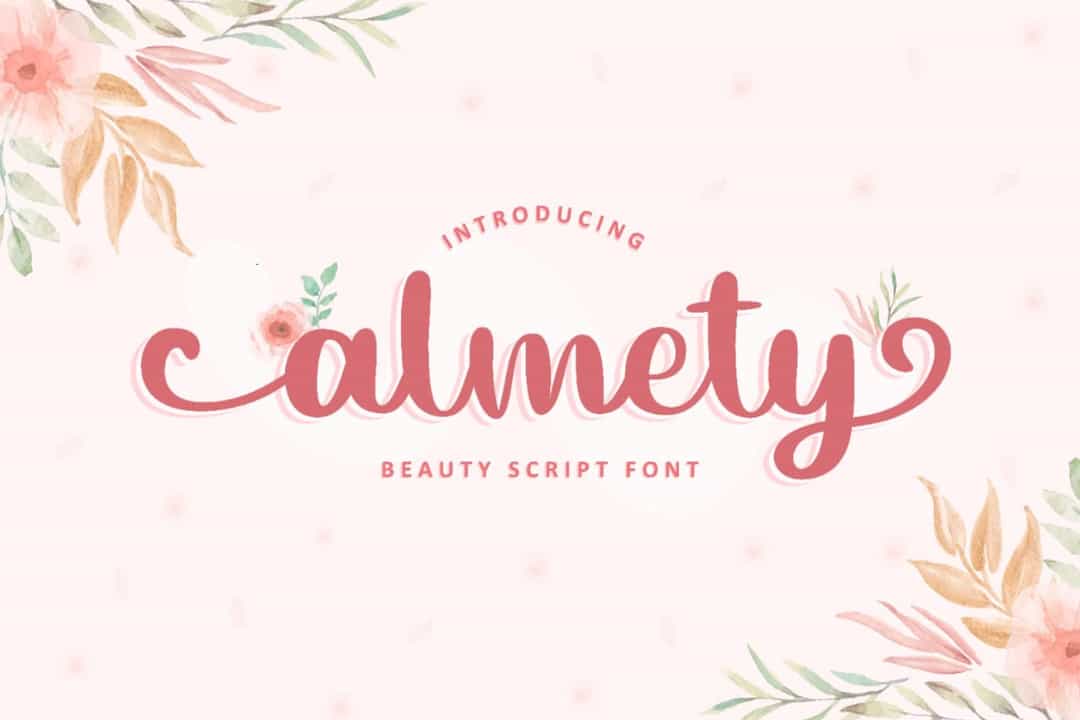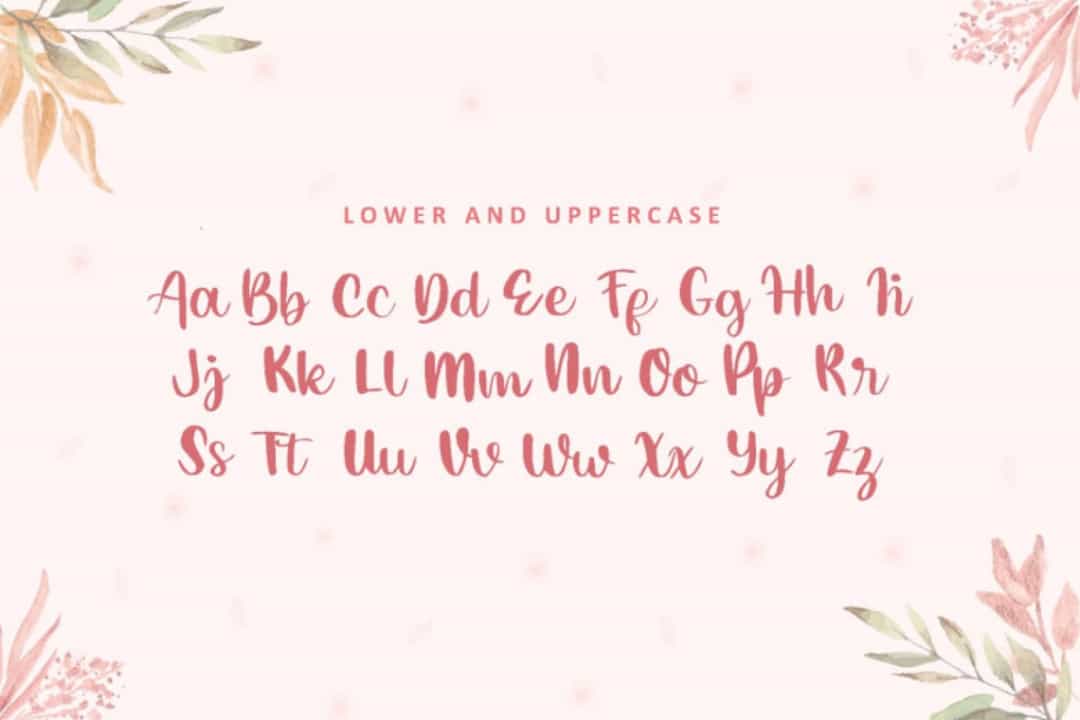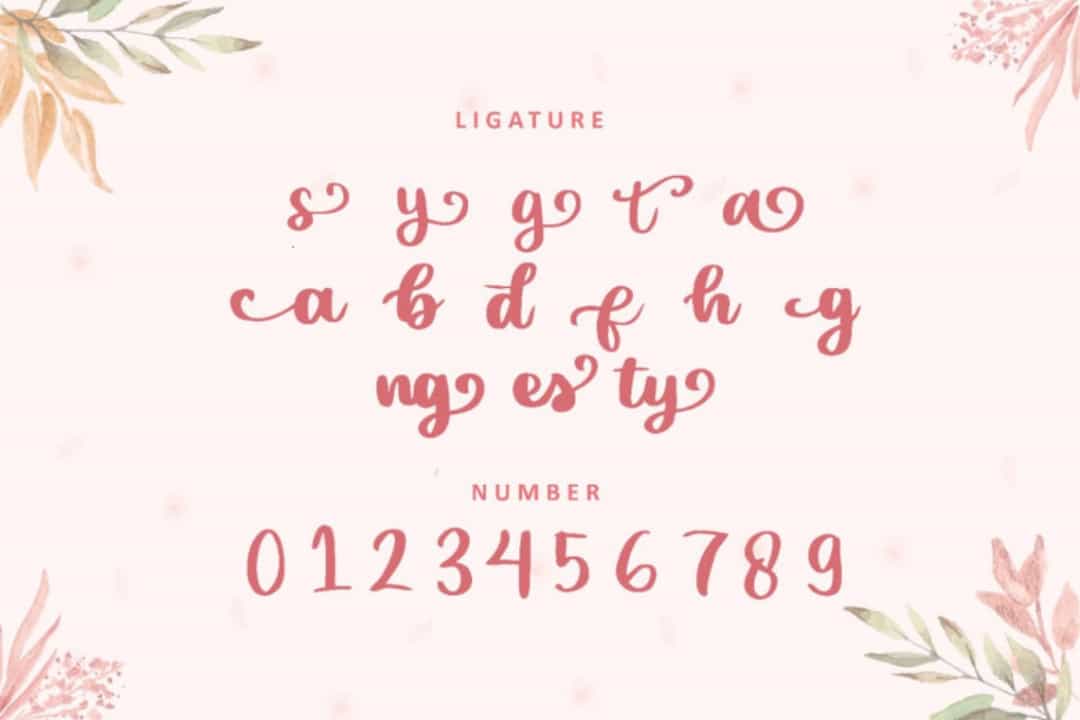
Almety is a slack modern script font that’s flexible and easy to use, perfect for creating eye-catching logos, branding materials or quotes that stand out. Each letter boasts its own distinct look which really brings any design alive! Almety supports TTF/OTF formats and even multilingual support!